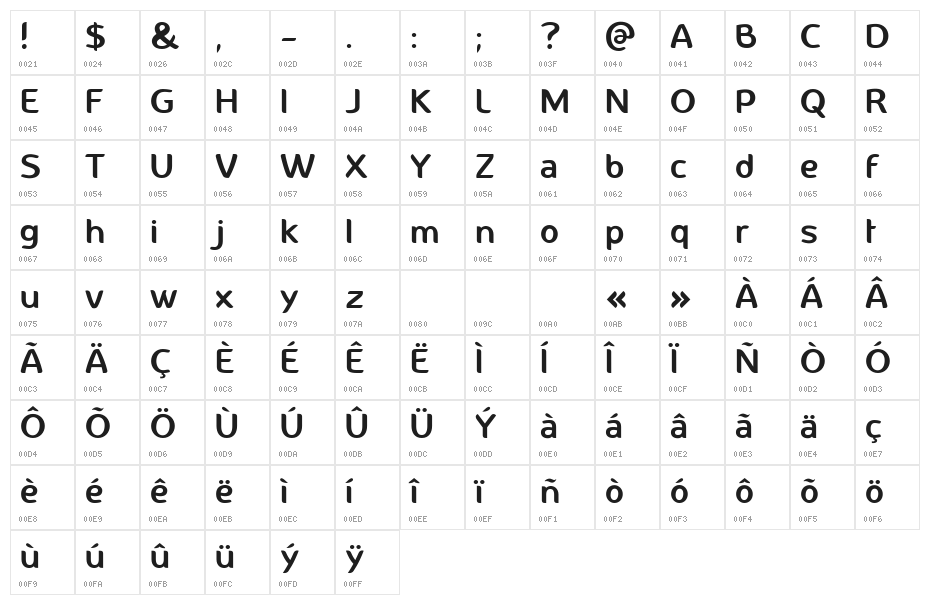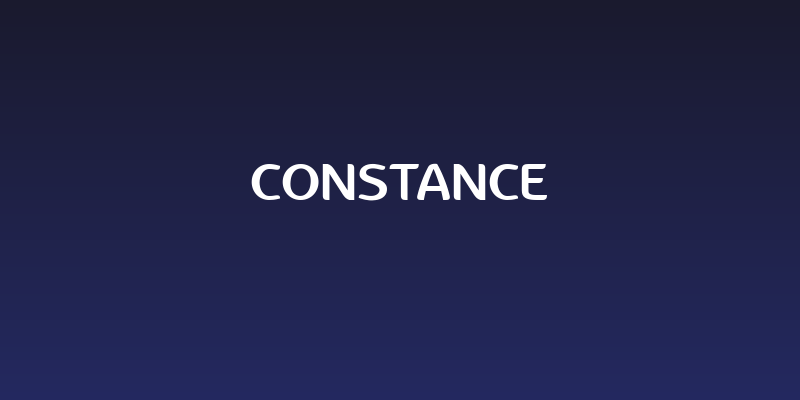
Constance Font
Constance Description
This font features a clean and modern sans-serif style with smooth curves and a consistent stroke width. The uppercase and lowercase letters are well-proportioned, offering a harmonious balance that enhances readability. The characters are slightly rounded, giving a friendly and approachable feel. The numerals and special characters are designed to match the overall aesthetic, maintaining uniformity across the typeface. This font is versatile, suitable for both digital and print media, and can be used in a variety of design contexts.